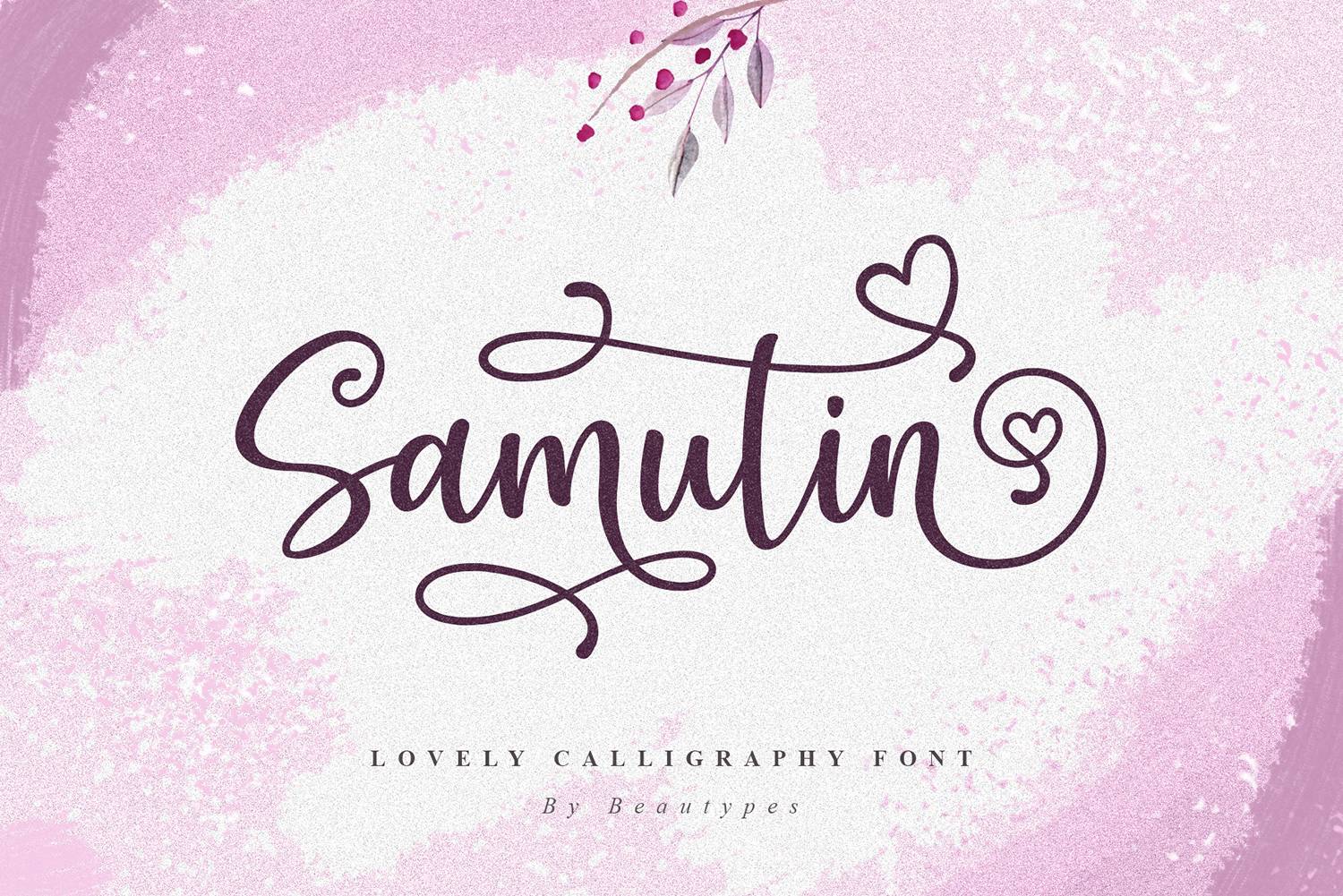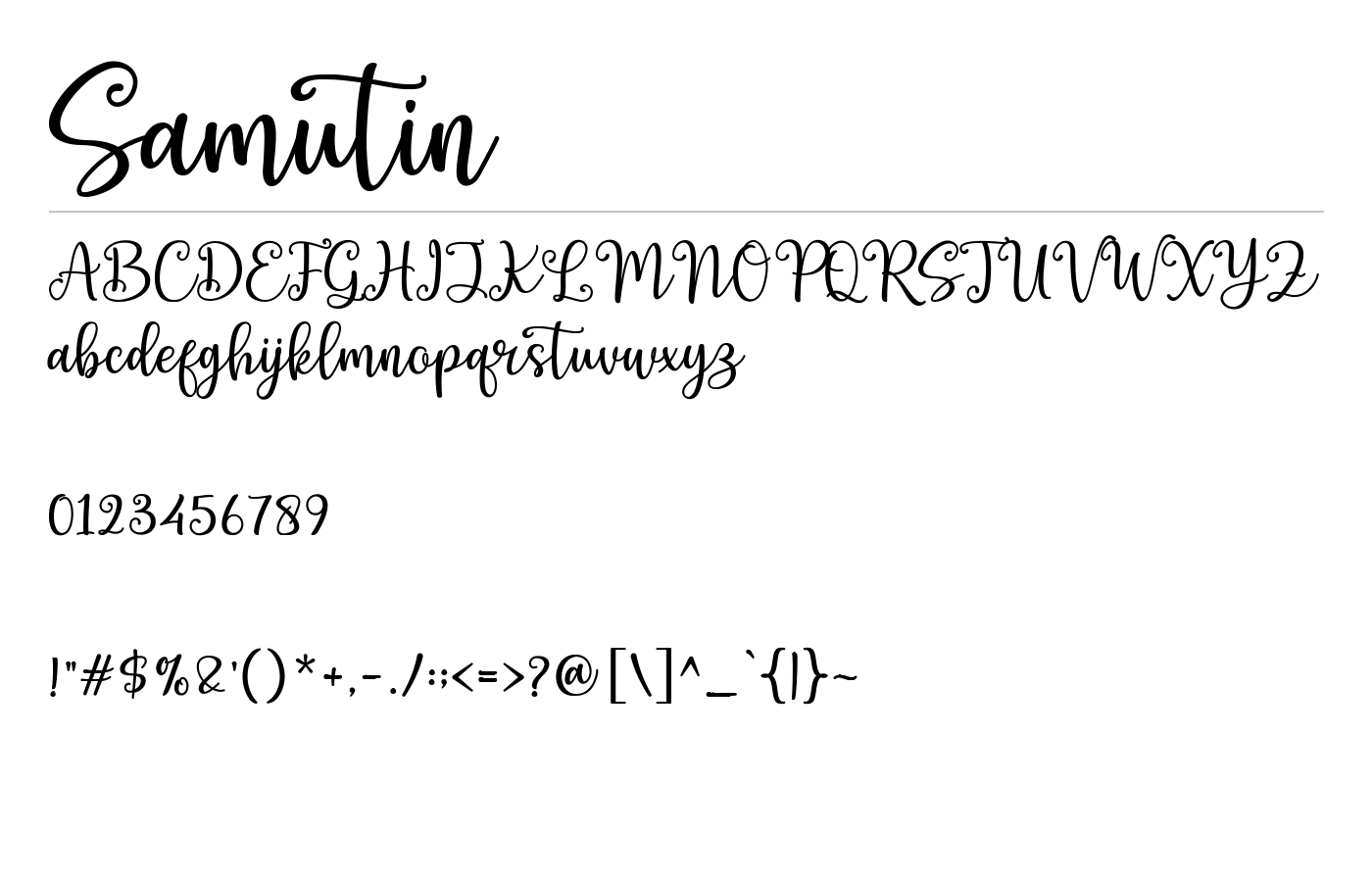
Samutin is a playful and elegant script font featuring fluid, hand-drawn letterforms with delicate swirls and smooth curves, offering a casual yet refined look. Its moderate weight and lively styling make it perfect for creative branding, invitations, and stylish headlines where a personal, friendly touch is desired. This font brightens designs with its charming personality, ideal for projects aiming for warmth and approachable elegance.
Samutin Font
About Samutin Font
| Font family | Samutin Font |
| Designer | Rizaldi Wandani |